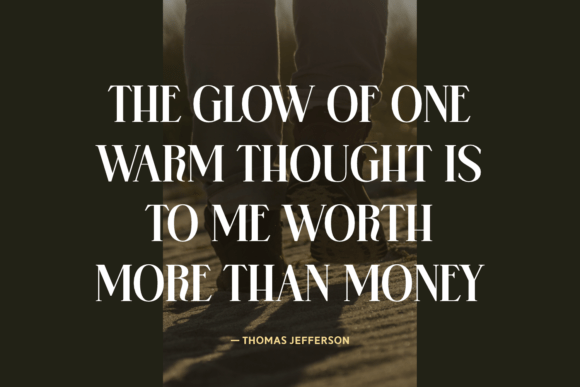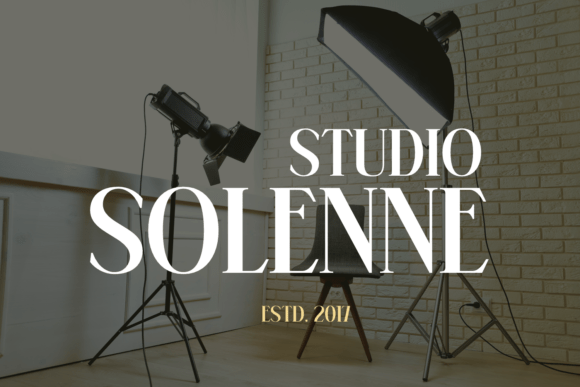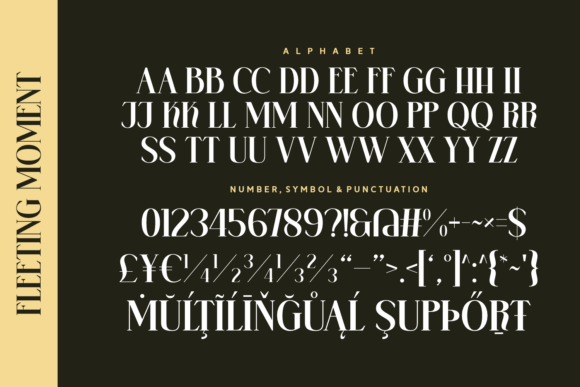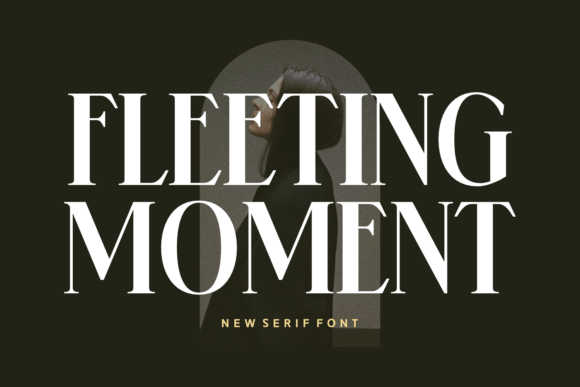
Introduction to Fleeting Moment Font
Fleeting Moment is a fashion-forward serif font that captures the drama and emotion of high-end editorial design.
With its tall letterforms, sharp serifs, and high contrast strokes, this typeface creates an unforgettable visual impact Ideal for magazine covers, photography portfolios, poster headlines, and upscale branding, Fleeting Moment blends modern structure with timeless elegance.
Key Features of Fleeting Moment Font
Why Choose Fleeting Moment Font?
Fleeting Moment Font offers exceptional quality and versatility, making it a valuable addition to your design toolkit. Whether you’re creating for personal projects or commercial use, Fleeting Moment Font delivers professional results.